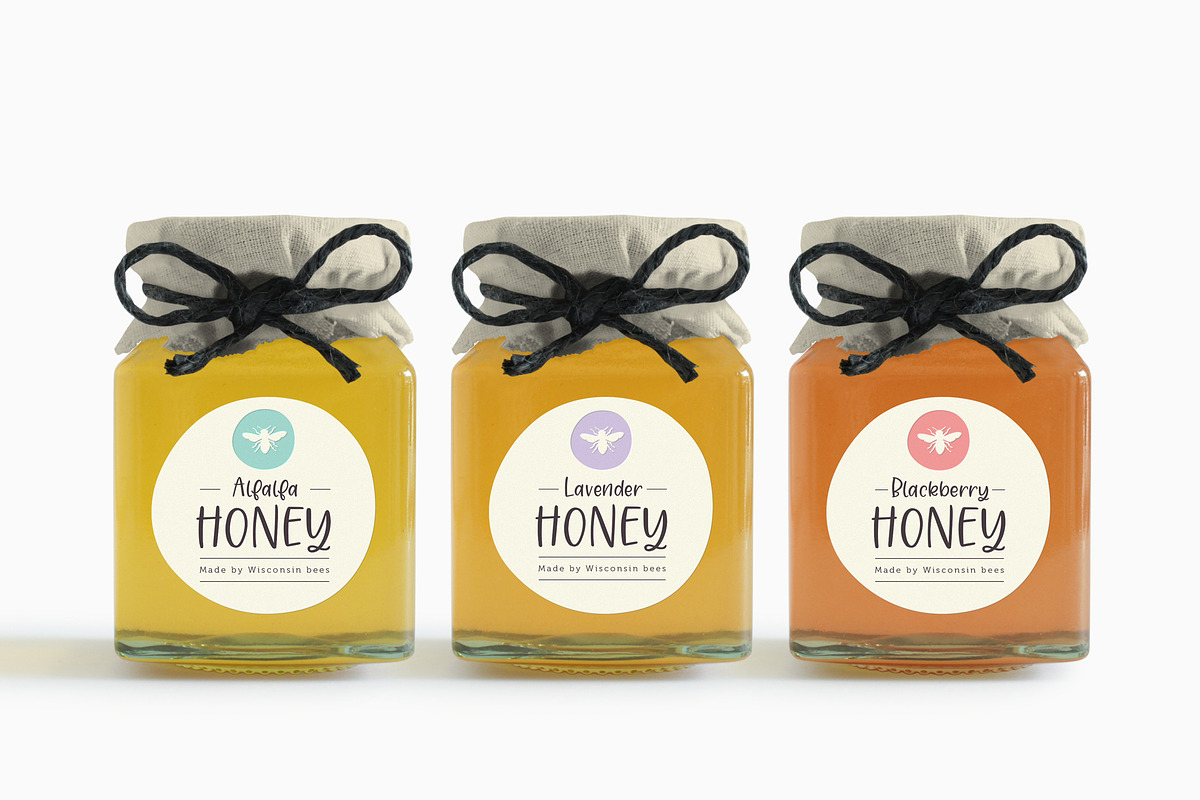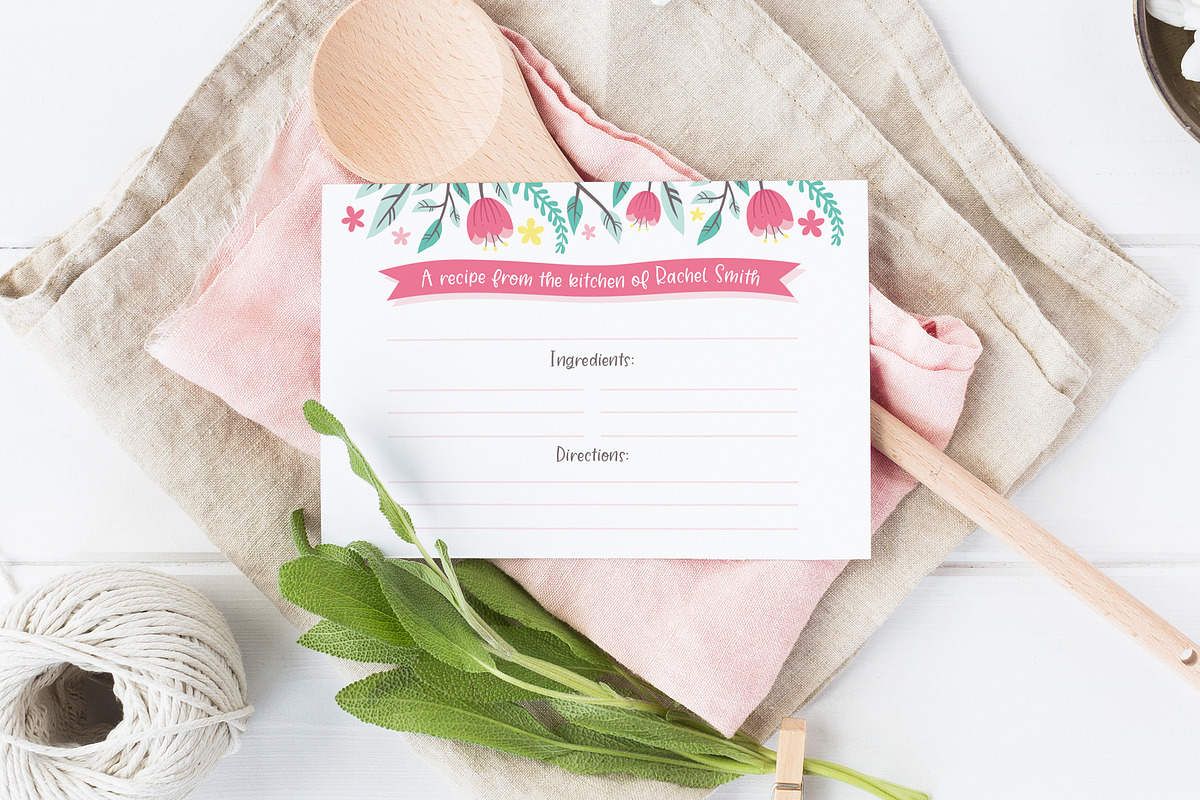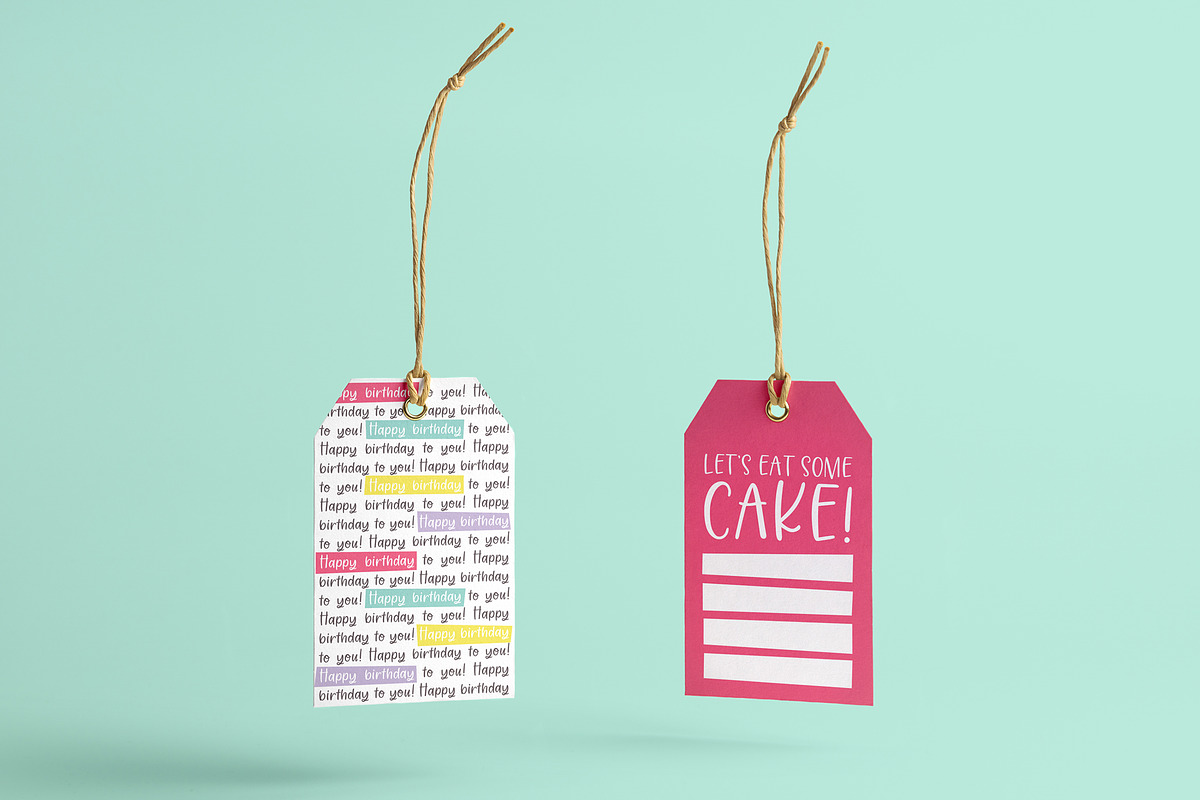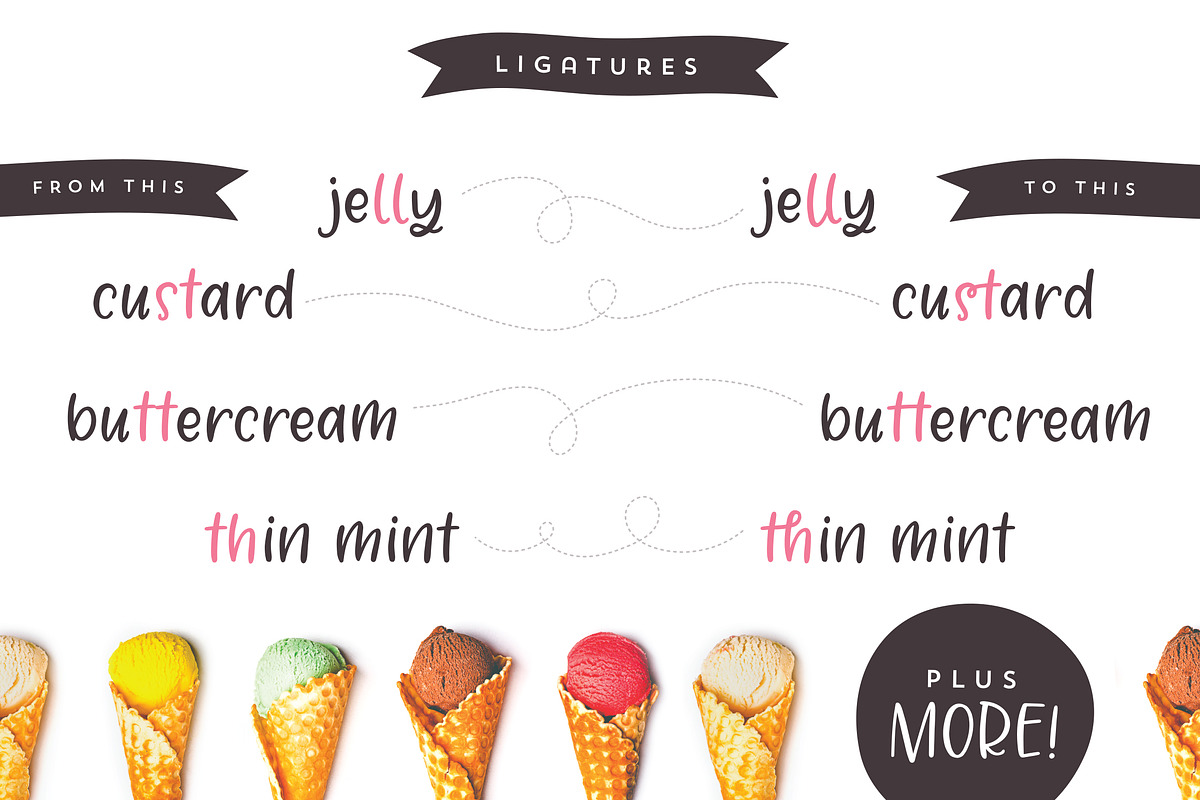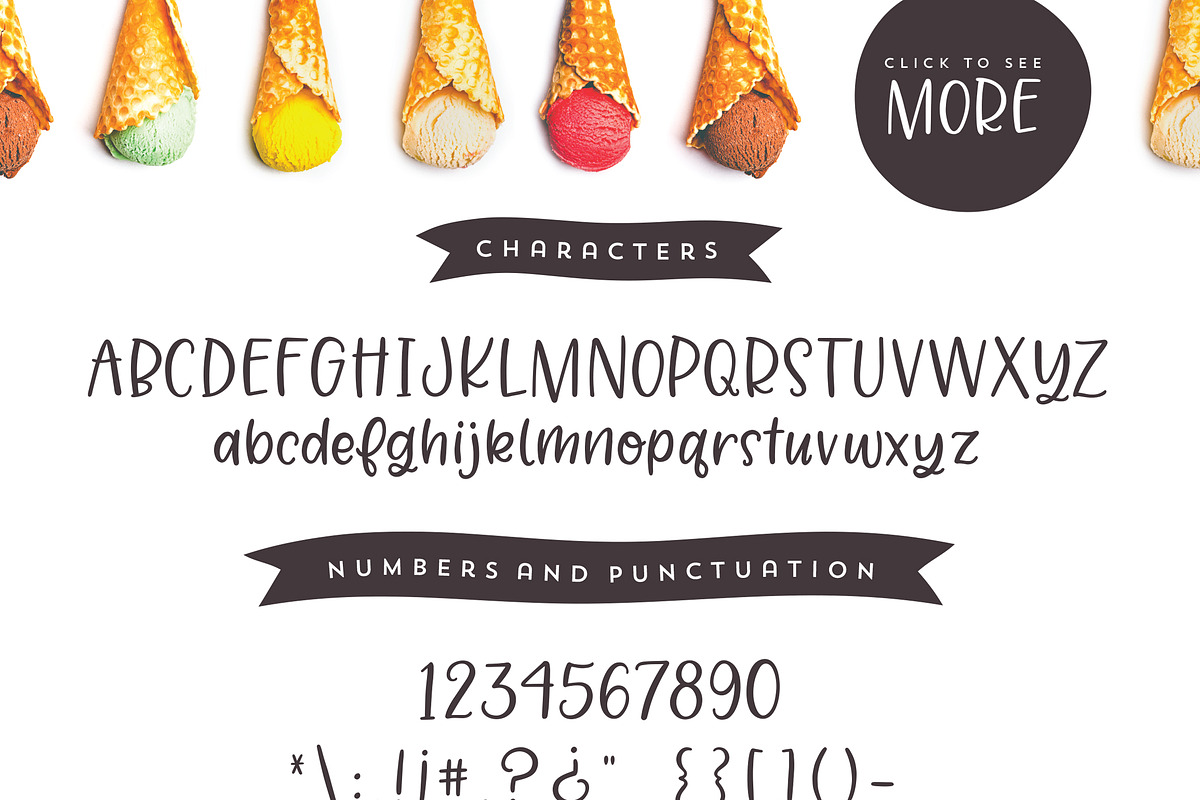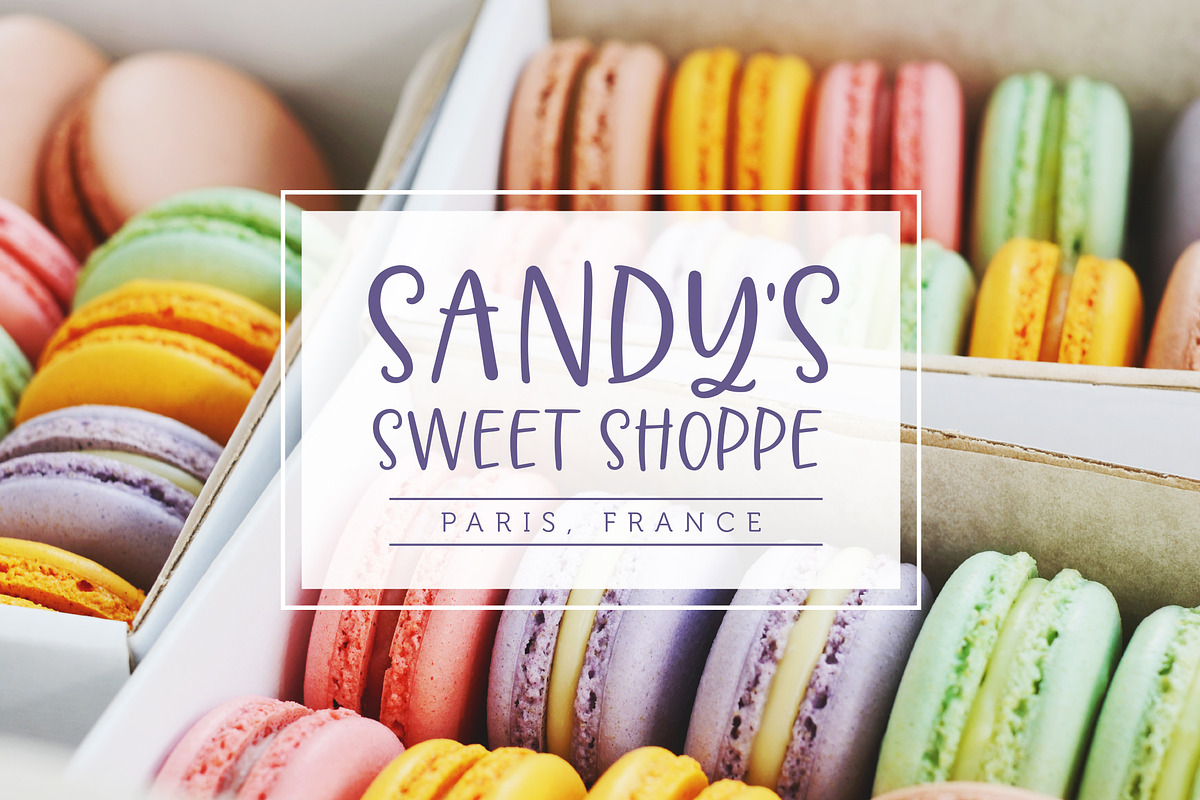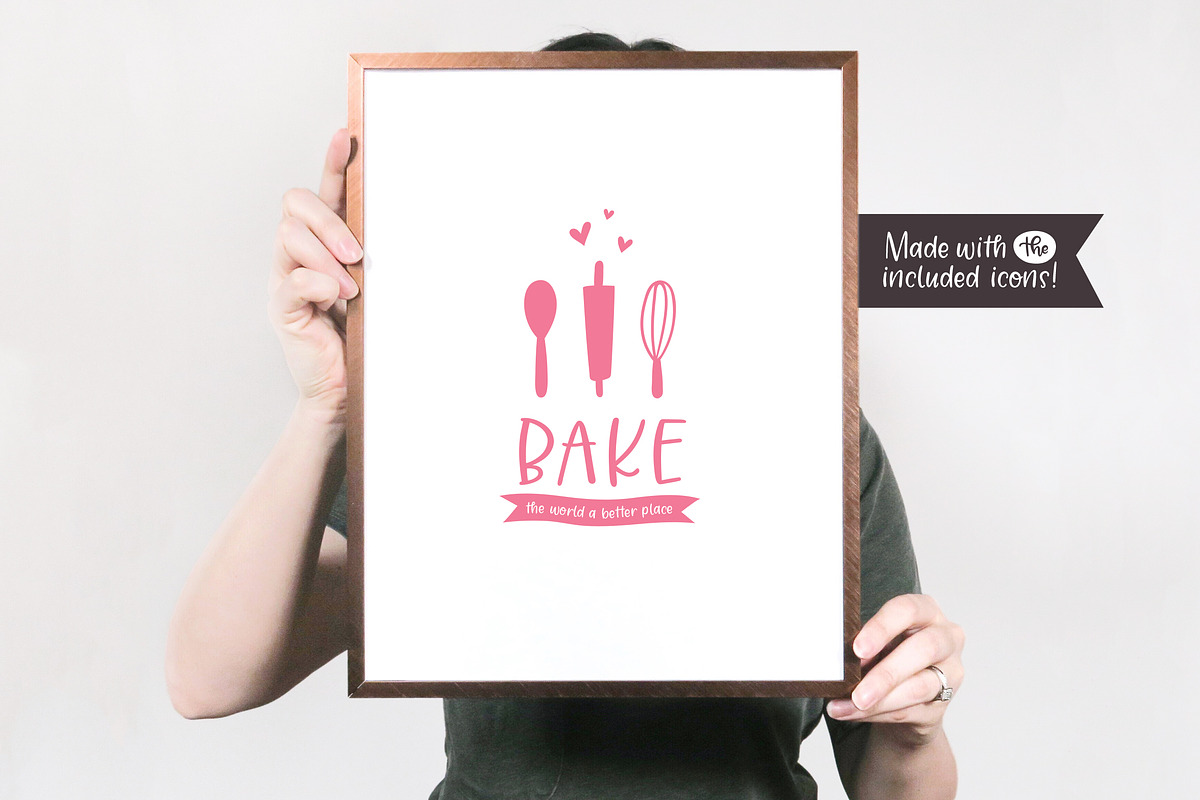
Jelligun | Hand-lettered Font
Jelligun is a cheerfully fun style, brimming with energy and personality. Using a combination of sans serif uppercase, loopy lowercase, and quirky decorative elements, makes creating eye-catching typography a piece of cake! The soft and bouncy letters give your text a sweet, hand-lettered feel, and the uppercase characters can be used on their own for a great attention grabber.
- Standard English uppercase and lowercase characters
- 11 double letter ligatures
- A large range of punctuation
- Multilingual support for Western European languages
- Over 50 hand drawn illustrations, shapes, swashes, and other decorative elements